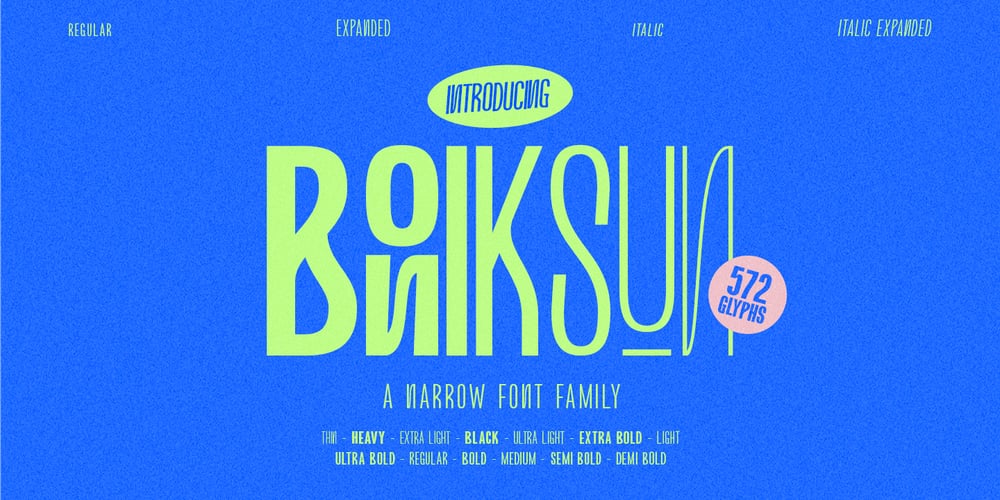
Boniksun Font Family was designed by Alit Suarnegara and published by Alit Design. Boniksun contains 48 styles and family package options. “BONIKSUN Typeface” is a modern sans serif font that comes in a variety of weights, ranging from Thin to Heavy. It has a high body, making it easy to read even in small sizes. The font includes 572 glyphs, which allow for a wide range of typographic possibilities.In addition to the regular weight, “BONIKSUN Typeface” also includes a condensed version, which is ideal for situations where space is limited. The font supports Private Use Area (PUA) encoding, allowing you to access special characters and symbols that are not available in standard character sets.Overall, “BONIKSUN Typeface” is a versatile font family that can be used in a variety of design contexts, from branding and advertising to editorial and web design. Its clean and modern aesthetic make it a popular choice for designers looking for a fresh and contemporary look.Language Support : Latin, Basic, Western European, Central European, South European,Vietnamese. In order to use the beautiful swashes, you need a program that supports OpenType features such as Adobe Illustrator CS, Adobe Photoshop CC, Adobe Indesign and Corel Draw. but if your software doesn’t have Glyphs panel, you can install additional swashes font files.